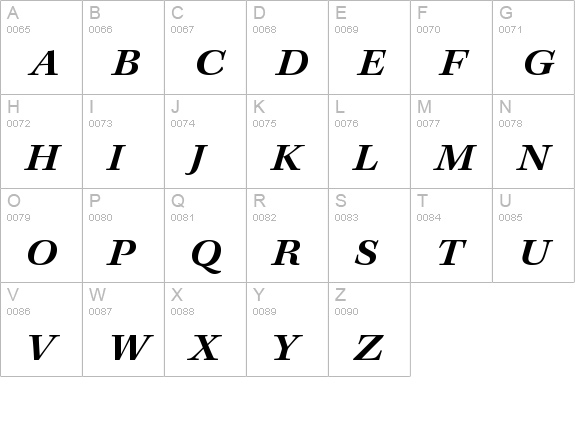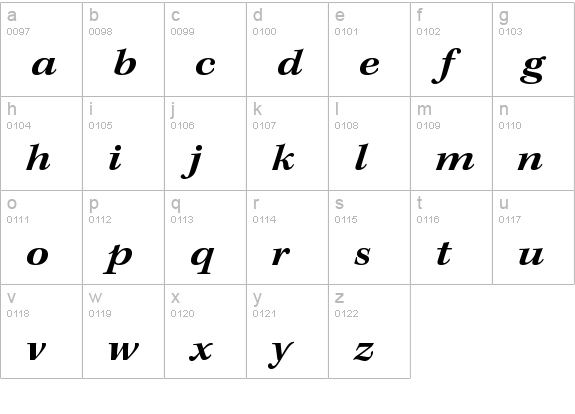
Kepler Std Semibold Extended Italic Font Details
Kepler Std Semibold Extended Italic is a sub-bold, structured, extended-width, italic variant in the Kepler typeface family \xE2\x80\x94 well suited to sub-headlines and emphasised passages.
Kepler Std Semibold Extended Italic font is a stunning typeface that effortlessly blends elegance and modernity. This font showcases a harmonious balance between boldness and sophistication, making it an excellent choice for projects that require a touch of both professionalism and creativity. With its slightly elongated letterforms and italic slant, Kepler Std Semibold Extended Italic adds a unique flair to any design. Whether used for headlines, subheadings, or body text, this font exudes a sense of confidence and style that captivates the reader's attention. What sets Kepler Std Semibold Extended Italic apart is its versatility. It seamlessly adapts to various design themes, from sleek and contemporary to vintage and classic. Its boldness empowers your words to stand out, while its extended letterforms provide a sense of spaciousness and legibility. And the best part? Kepler Std Semibold Extended Italic font is freely available to download at FontsMarket.com. This means that you can effortlessly access this exceptional font and elevate your designs without any hassle. So why wait? Discover the power of Kepler Std Semibold Extended Italic and take your projects to new heights of creativity and professionalism.